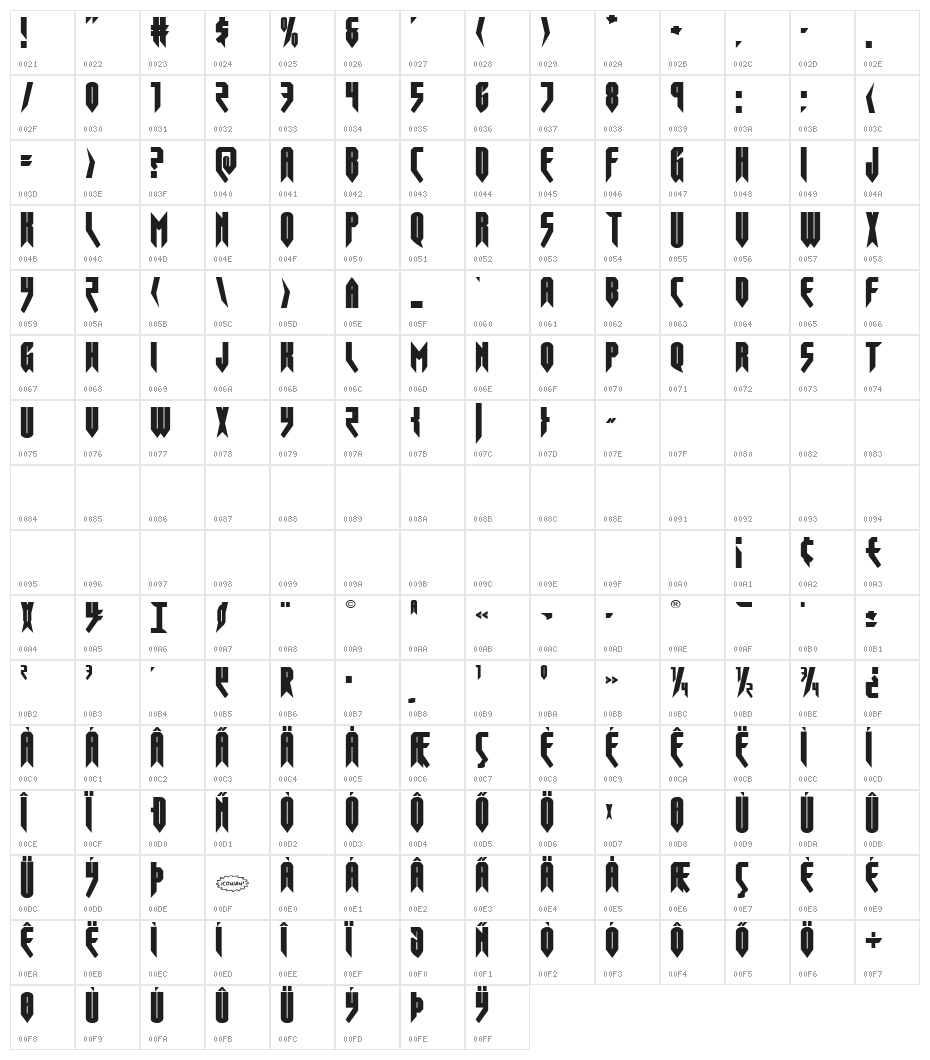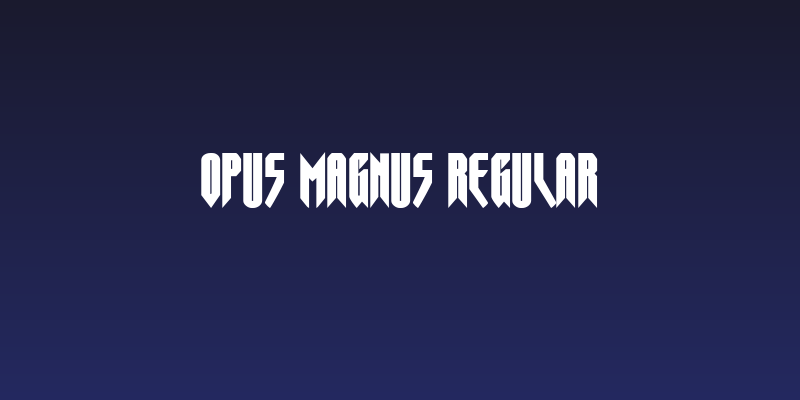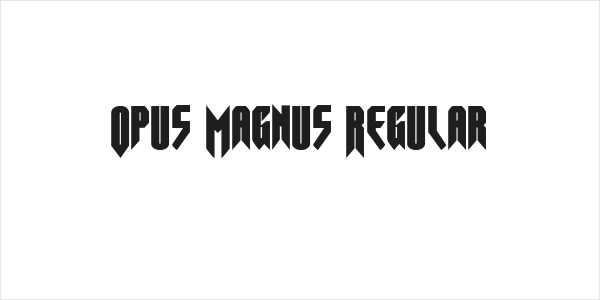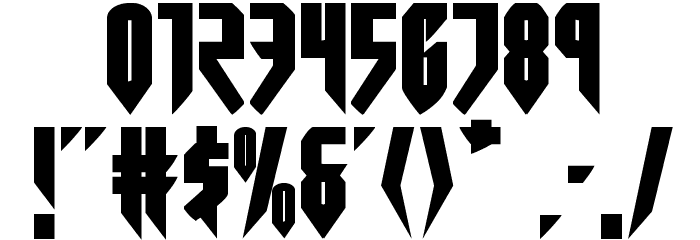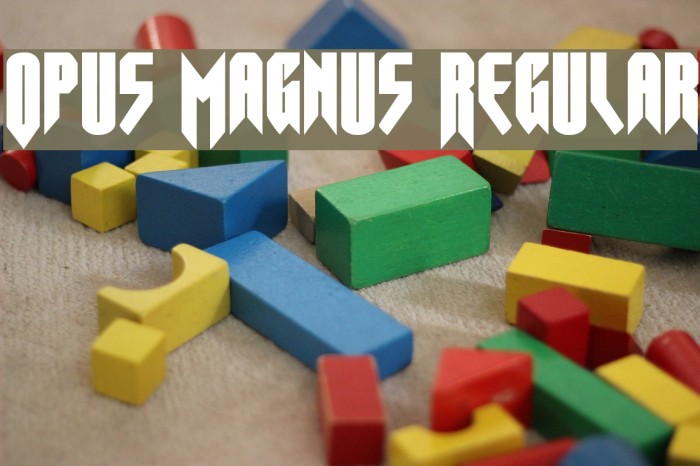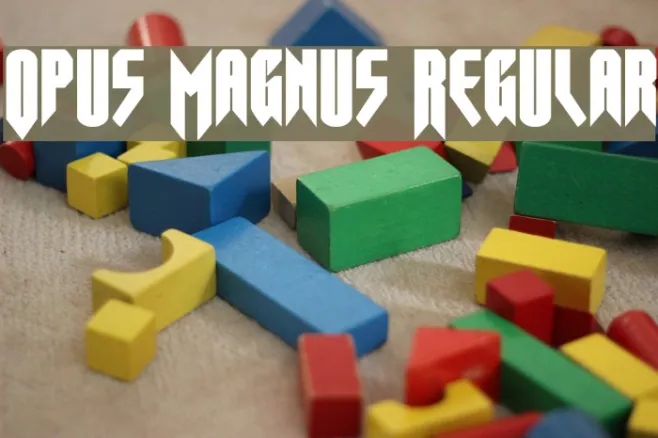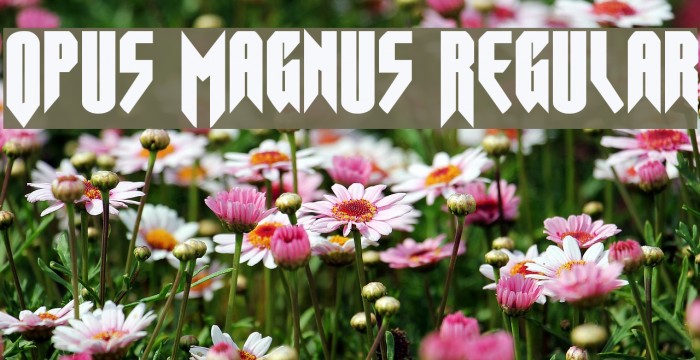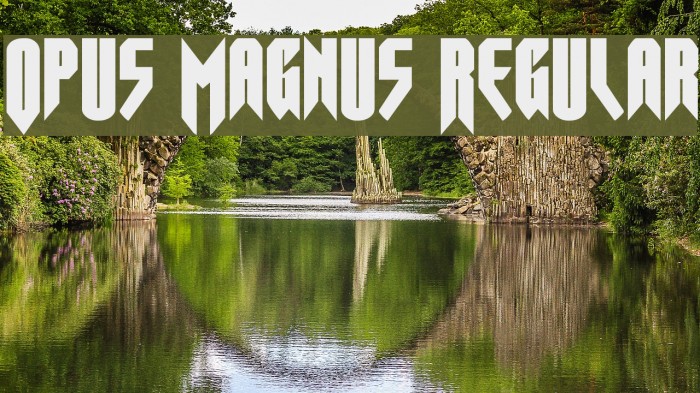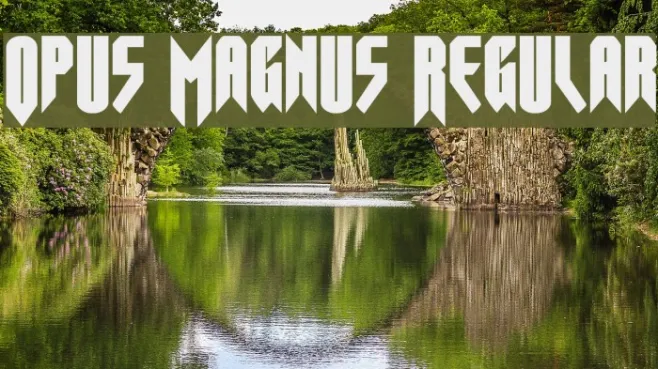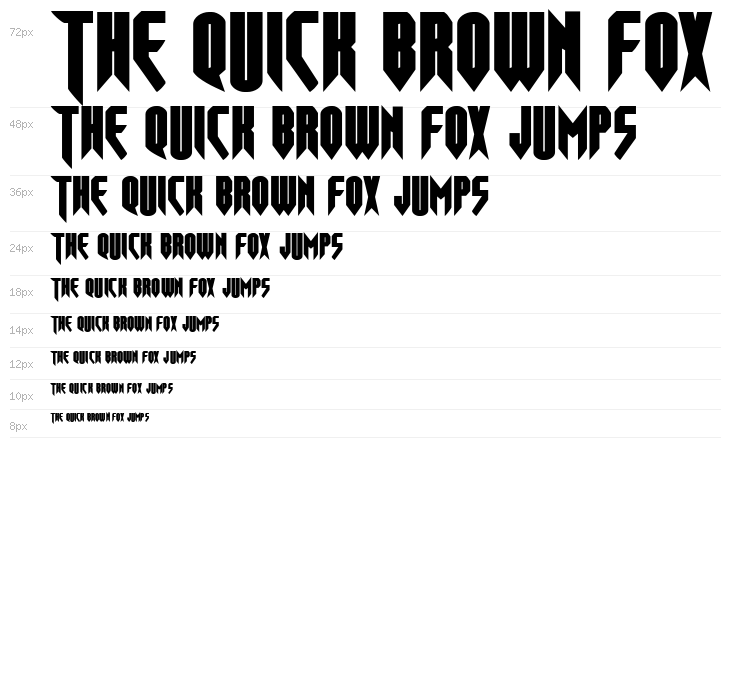
Opus Magnus Regular Font
Opus Magnus Regular Description
This font features a bold and striking design with sharp, angular edges and a geometric structure. The uppercase and lowercase letters maintain a consistent style, characterized by their blocky and robust appearance. The numerals and special characters follow the same design principles, ensuring a cohesive look across all glyphs. The font's unique style makes it stand out, with its high-impact visual presence and modern aesthetic. It is well-suited for projects that require a strong and memorable typographic statement.
| Proposed Projects | Ideal for posters, album covers, video game titles, and branding that requires a bold statement. |